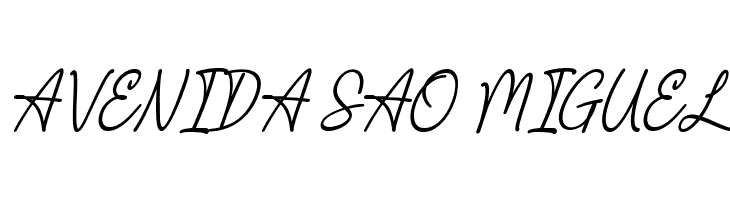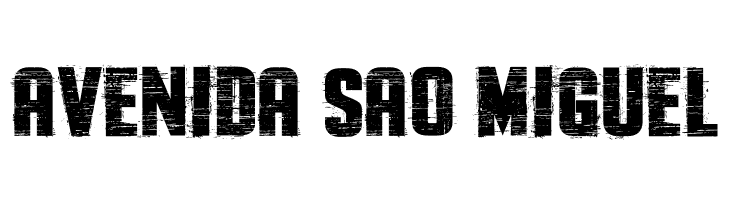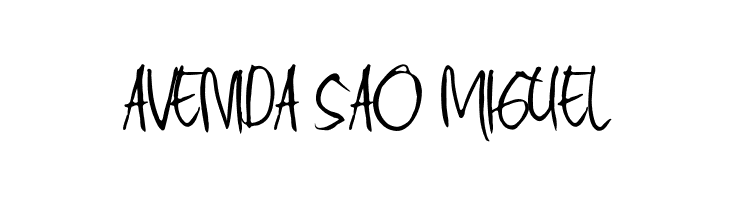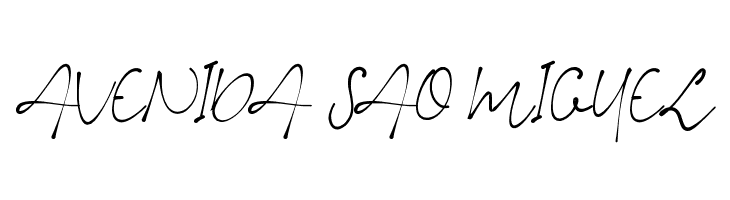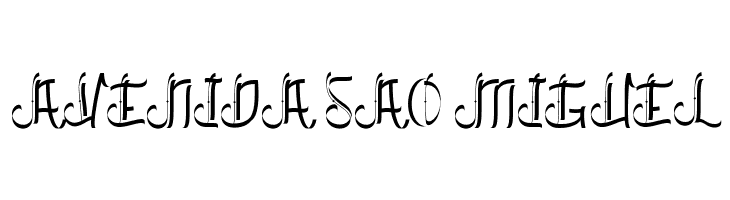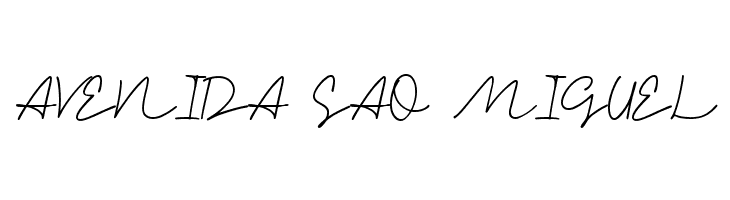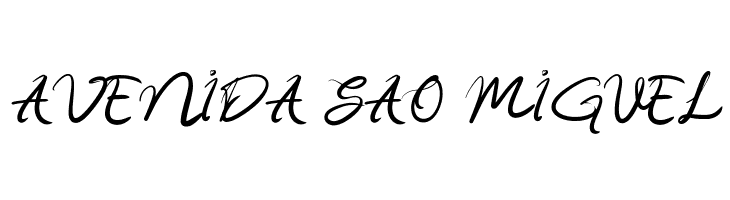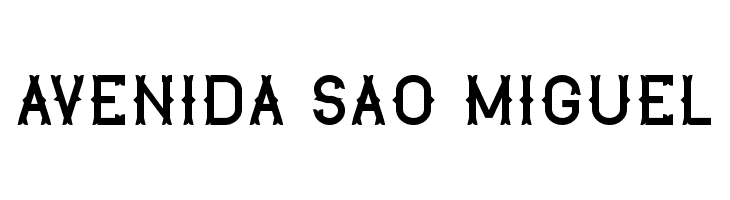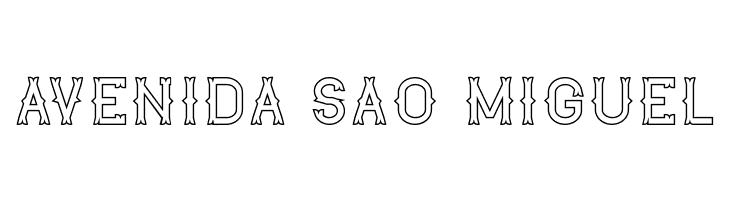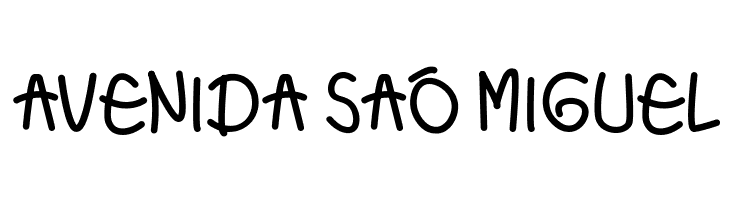
A flowing, cursive font with elegant loops and a handwritten style.
A bold, expressive script font with playful, dynamic flow and high contrast.
A sophisticated, slanted script font with elegant curves and loops.
A graceful script font with a smooth, flowing style and slight slant.
A dynamic, hand-drawn font with expressive brush-like strokes.
A cursive, elegant font with a flowing, handwritten style.
A bold, textured font with a vintage horror aesthetic.
A gothic-inspired font with sharp angles and decorative serifs, offering a bold and dramatic style.
A modern italic font with sharp, angular lines and a geometric style.
A bold, rounded font with a modern and playful style.
A bold, distressed font with a rugged, grunge appearance.
A bold, distressed font with an edgy, futuristic design.
A flowing, cursive font with elegant, connected characters.
A modern, elegant script font with fluid, cursive strokes and medium contrast.
A fluid, cursive handwritten font with a delicate and elegant style.
A delicate and elegant handwritten script with flowing, interconnected letterforms.
A playful, rounded font with a hand-drawn, whimsical style.
A charming cursive script font with elegant, flowing letters.
A flowing, cursive font with elegant, connected characters.
A decorative script font with elegant loops and swashes, perfect for artistic projects.
A bold, expressive script font with a hand-drawn, dynamic style.
A sophisticated script font with flowing, connected strokes and elegant curves.
Bold, playful handwritten font with brush-like strokes.
A playful, handwritten font with bold, rounded characters and a casual style.
A bold, decorative font with vintage and modern elements, ideal for standout designs.
A bold, outlined font with a modern and decorative style, ideal for impactful headlines.
A bold, decorative font with a vintage, textured outline and shadow effect.
A bold, distressed font with a vintage, rugged appearance.
A bold, condensed font with a modern and strong appearance.
A dynamic and fluid handwritten font with elegant, flowing letterforms.
A bold, cursive font with elegant swashes and flowing letterforms.
An elegant script font with flowing, cursive strokes and artistic flair.